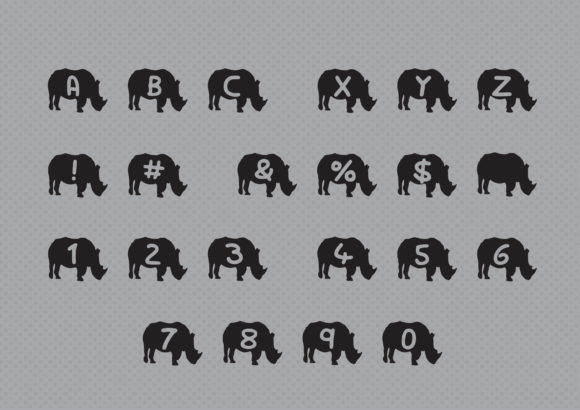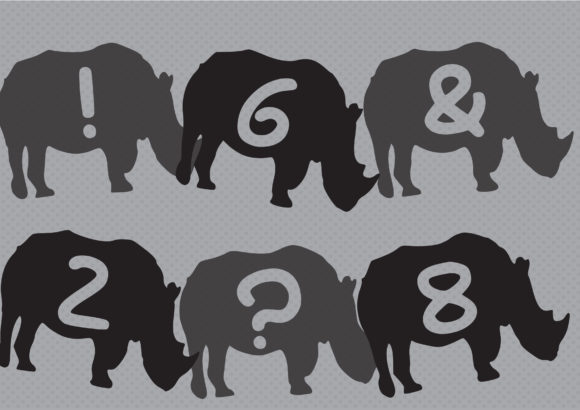
Introduction to Play Rhino Font
Have you ever stared at a blank canvas, feeling like the perfect design is just out of reach? You know that moment when your creativity is screaming to break free, but the right font is all it needs to get started? For designers, finding the perfect font can be a game-changer – and that’s exactly what the Play Rhino Font offers.
Whether you’re working on a storybook cover, a children’s design, or a poster for a game, the Play Rhino Font is the perfect decorative typeface to bring your creative project to life. With its cute and playful style, this font is a must-have design resource for any creative mind looking to add a touch of whimsy to their work.
Key Features of Play Rhino Font
- High-quality design resource for creative projects: The Play Rhino Font is a versatile and stylish font perfect for designers and artists working on various creative projects.
- Unique and stylish design: The Play Rhino Font features a unique and stylish design that adds a touch of sophistication to any creative project.
- Perfect for logos, typography, and more: The font’s versatility makes it an ideal choice for designing logos, typography, and other creative elements.
Honest Review: Play Rhino Font
- ✨ The Play Rhino Font has a transparent background, which makes it super easy to use in any design project. I’ve already used it in a few logos and branding materials with great results.
- ✨ The font is available in a range of weights and styles, which gives me a lot of flexibility when it comes to choosing the perfect look for my project.
- ⚠️ The font may not be suitable for all types of design projects. Its playful, whimsical style may not be the best fit for more serious or professional-looking work.
- ⚠️ The font is a bit on the heavier side, so it may not be the best choice for projects where readability is a top priority.
Tips for Getting the Most Out of Play Rhino Font
To get the most out of the Play Rhino Font, experiment with different font sizes, colors, and styles to create visually appealing designs. Combine the font with other design elements to create unique and eye-catching graphics. Use the font in conjunction with a transparent background to achieve seamless integration with your design.
Is the Play Rhino Font suitable for small-scale and large-scale designs?
Yes, the Play Rhino Font is designed to be versatile and can be used for both small-scale and large-scale designs. Its high-quality design and transparent background make it an ideal choice for a variety of creative projects, from logos and icons to large-scale graphics and signage.